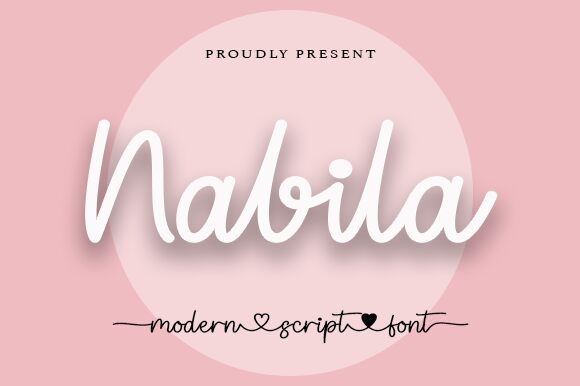
Nabila
Nabila, the brainchild of renowned designer Wahyu Studio, is a captivating modern handwritten font. With its semi-light weight, this font exudes an elegant and sophisticated vibe that is perfect for various creative projects. Its flowing curves and stylish letterforms make it an excellent choice for branding materials, such as logos and business cards. Additionally, Nabila's versatility allows it to enhance blog headers, social media posts, and even wedding invitations with its trendy and personalized touch. Let your imagination run wild with Nabila – a font that effortlessly elevates any design endeavor.